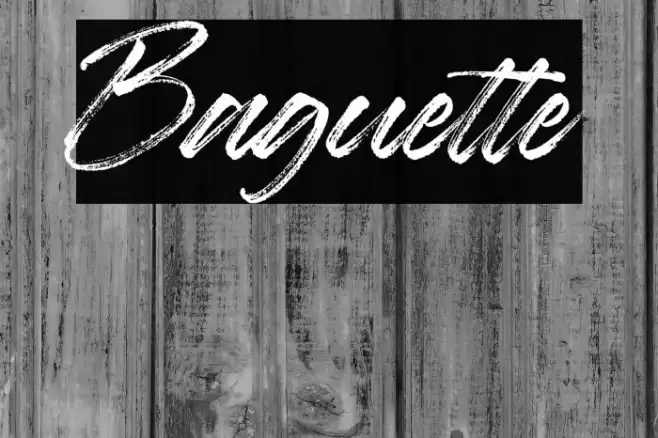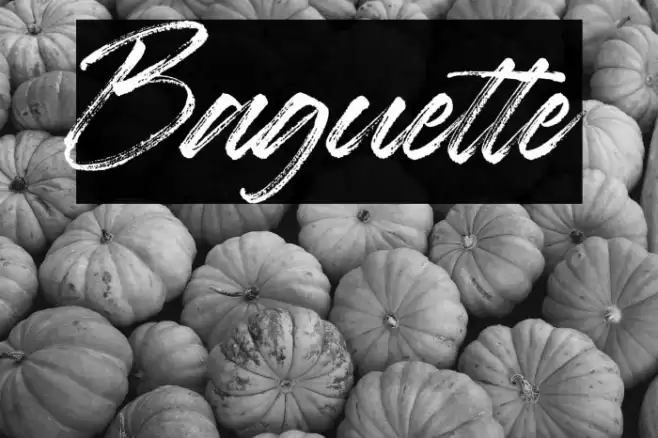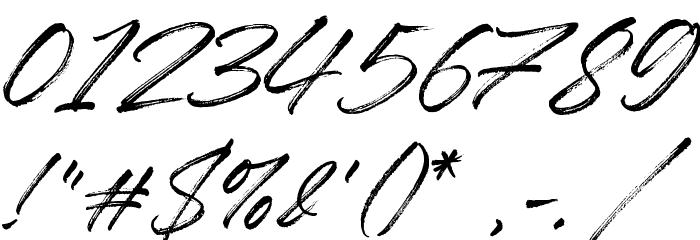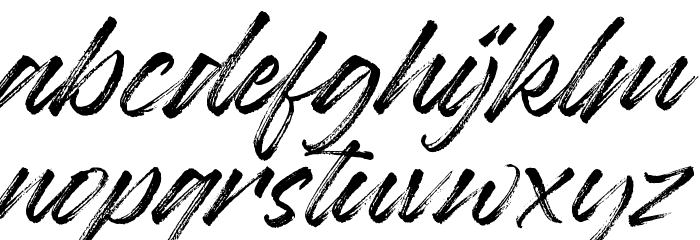
Baguette Font
Baguette Description
This font exudes a dynamic and energetic feel with its brush-like strokes and cursive style. The letters are connected, giving it a fluid and continuous appearance, reminiscent of handwriting. The uppercase letters maintain a consistent height, while the lowercase letters vary in size, adding to the font's lively character. The numerals and special characters follow the same expressive style, ensuring a cohesive look across all elements. The texture of the strokes suggests a hand-drawn quality, making it suitable for projects that require a personal touch.
A dynamic, brush-style cursive font with a hand-drawn appearance from Uncategorized fonts.
- Proposed Projects: Ideal for branding, invitations, greeting cards, and artistic projects that require a personal and expressive touch.
- Use Case: Logos, Headlines, Artistic projects